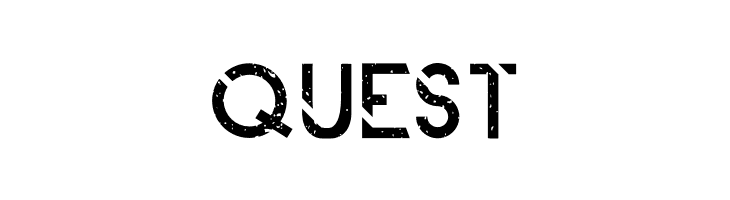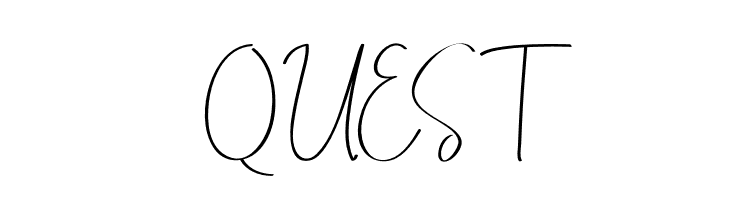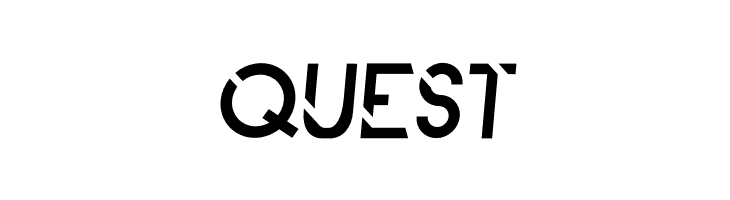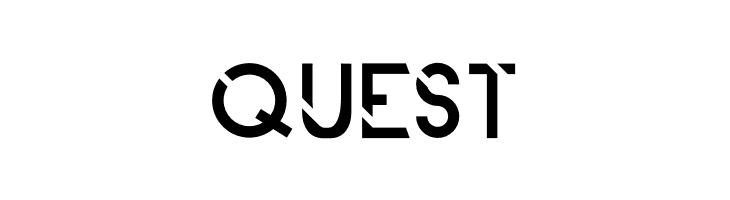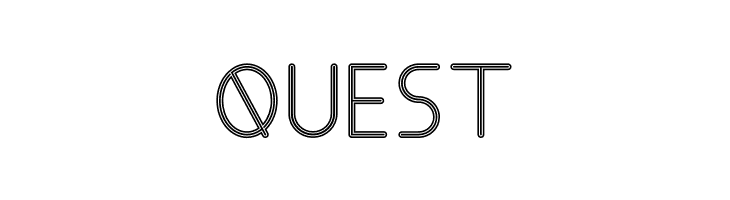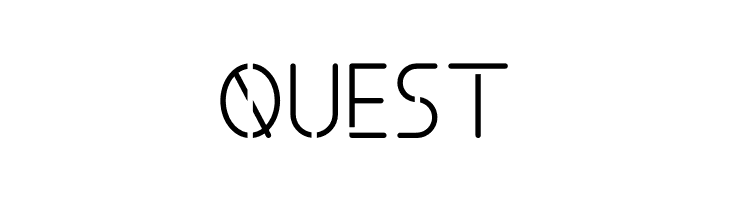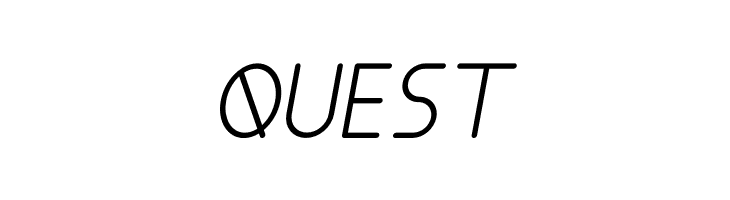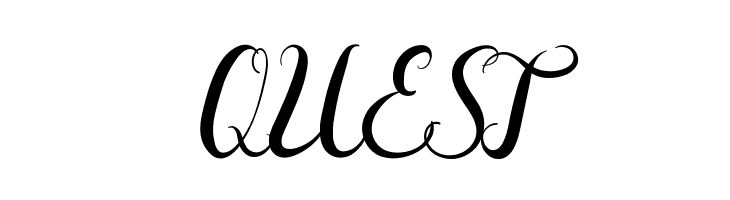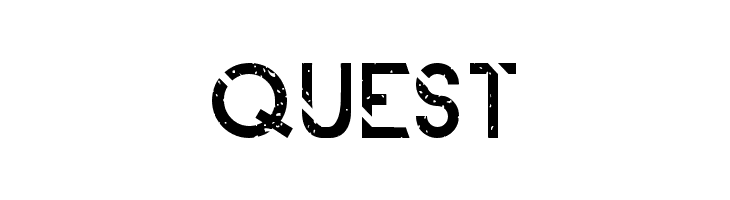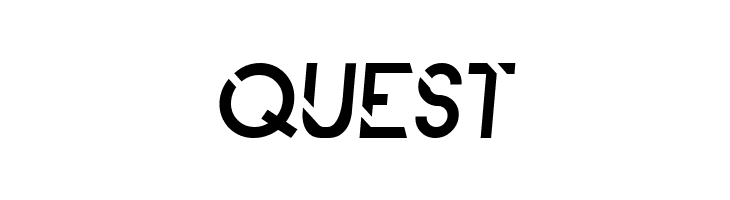
An elegant, flowing script font with graceful curves and sophisticated flair.
A bold, dynamic script font with a handwritten appearance.
A dynamic and elegant script font with flowing, cursive letters.
An elegant, cursive font with intricate loops and swashes.
A bold, modern stencil-like font with geometric cuts and angles.
A bold, geometric font with sharp angles and a modern, edgy style.
A bold, geometric font with a modern, stencil-like design.
A bold, distressed font with a grunge aesthetic and textured appearance.
A modern, geometric italic font with sharp angles and a dynamic style.
A lively and dynamic script font with flowing, interconnected strokes.
A bold, distressed font with a grunge aesthetic and geometric structure.
A bold, distressed font with a grunge aesthetic and textured appearance.
A bold, geometric, and modern italic font with dynamic cut-out elements.
A bold, geometric, and modern italic font with sharp angles.
A graceful, handwritten script font with a casual elegance.
A fluid, elegant script font with a casual handwritten style.
A bold, geometric font with a modern industrial style.
A bold, rough-textured font with a vintage, industrial feel.
A bold, rounded font with a friendly and approachable style.
A bold, distressed font with a vintage stamp effect.
A modern, geometric font with clean lines and rounded edges.
A bold, geometric font with sharp angles and a blocky design.
A futuristic, segmented font with a digital, high-tech appearance.
A modern, geometric font with rounded edges and uniform stroke width.
A modern, geometric font with unique cut-out styling and clean lines.
A modern, geometric font with rounded edges and unique character designs.
A modern, geometric font with clean lines and unique cut-out elements.
A sleek, modern italic font with consistent stroke width and elegant design.
A modern, double-line stroke font with a geometric and hollow design.
A modern, italic font with consistent stroke width and smooth, rounded characters.
A modern, double-line outline font with geometric shapes and clean lines.
A playful, casual handwritten font with rounded, irregular letterforms.